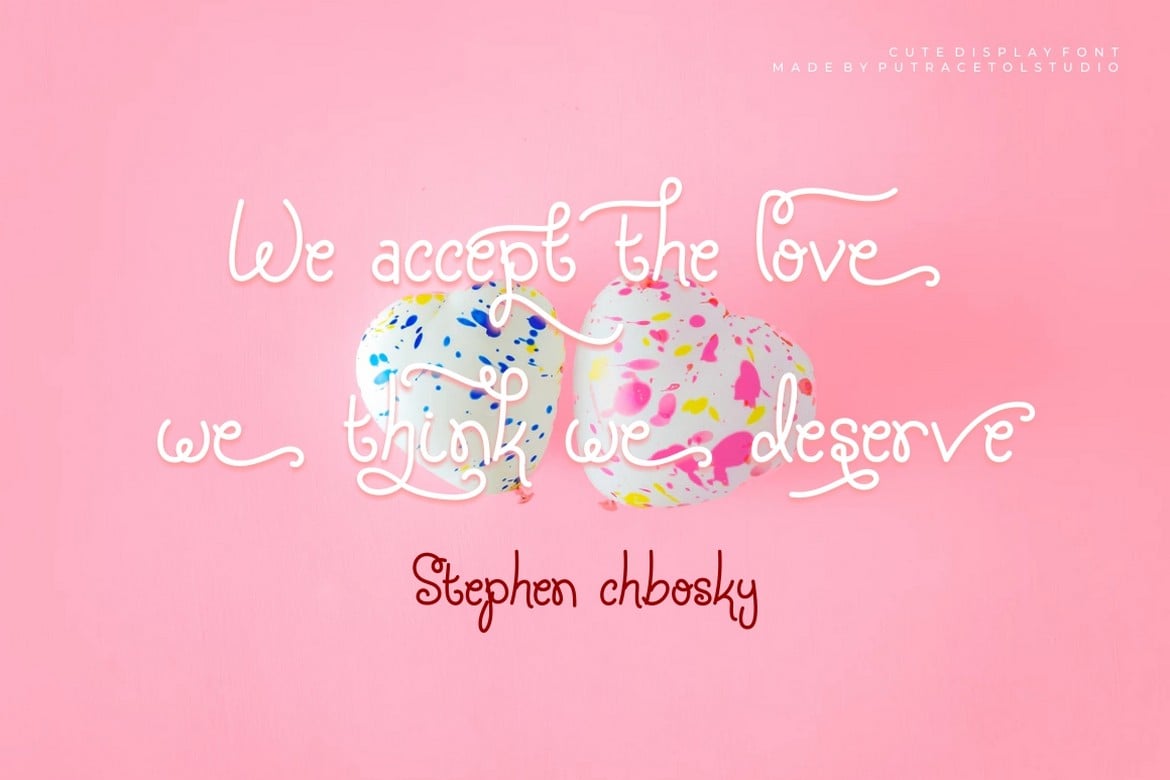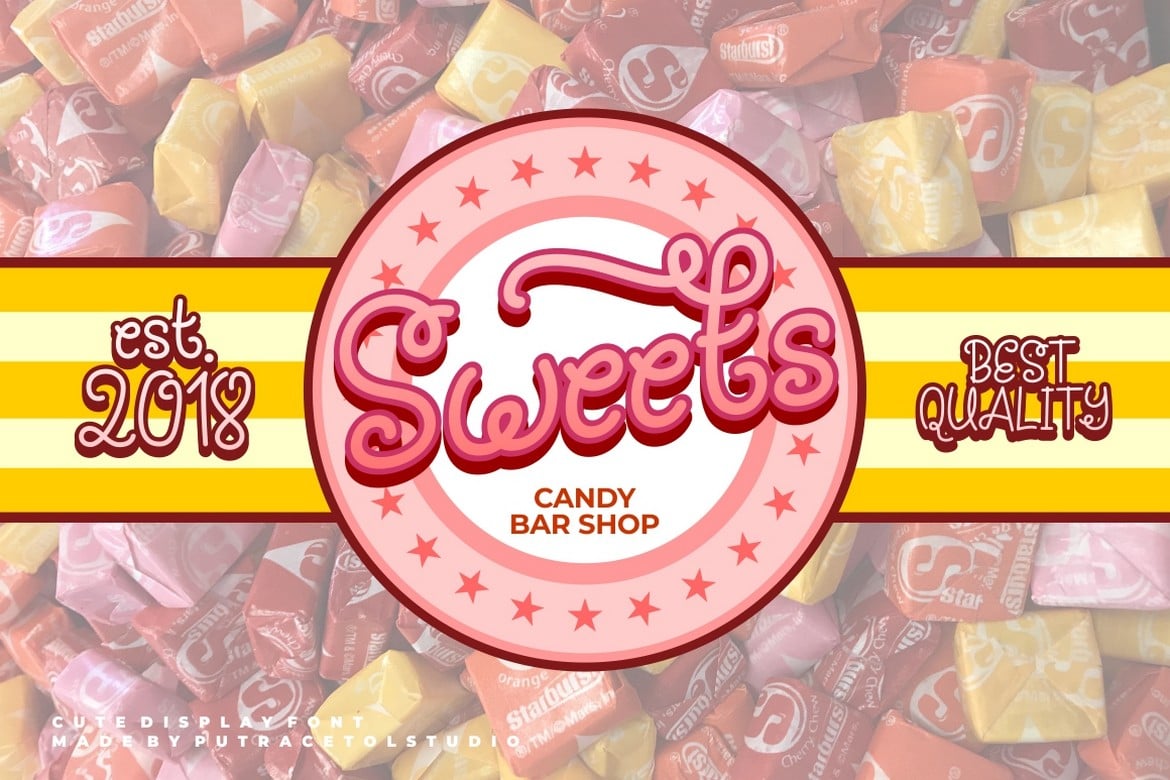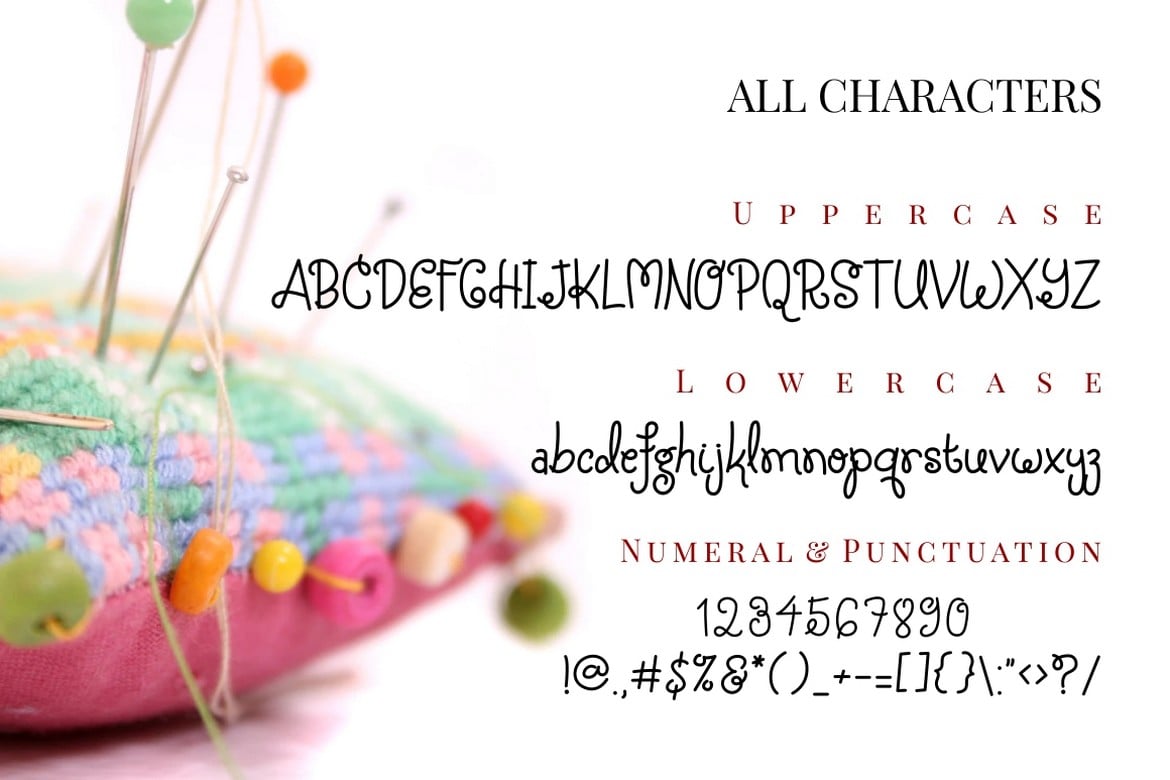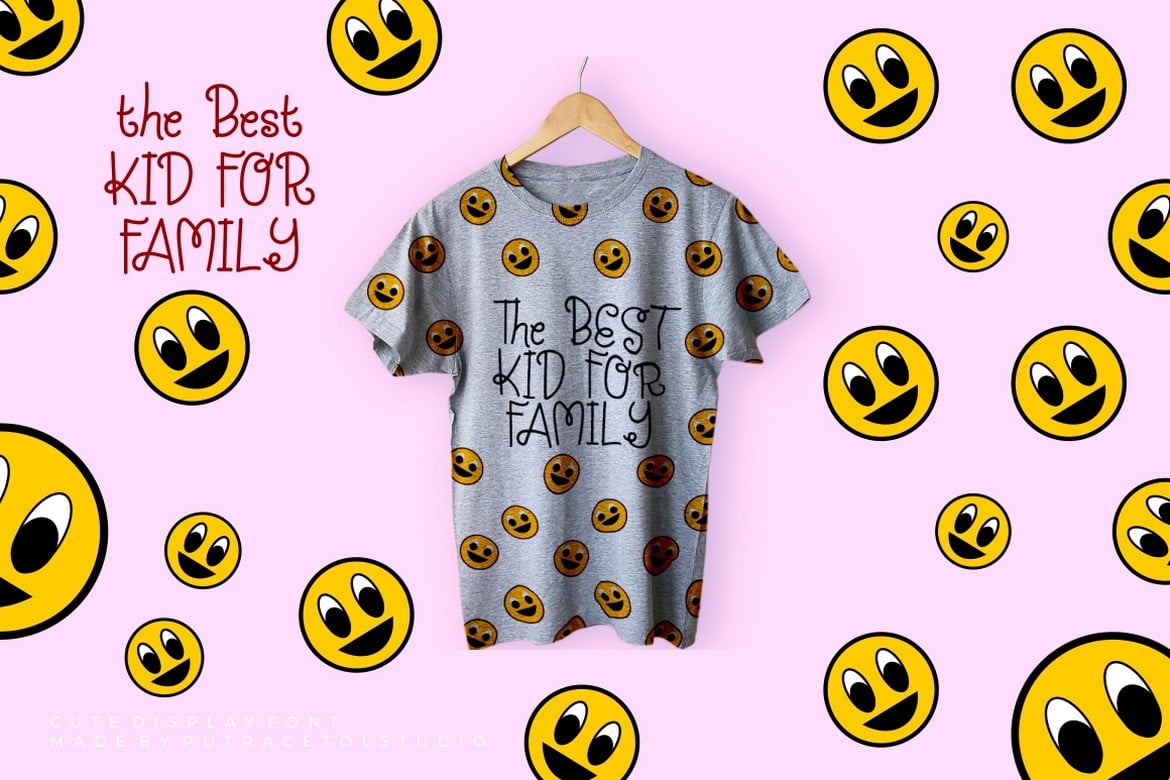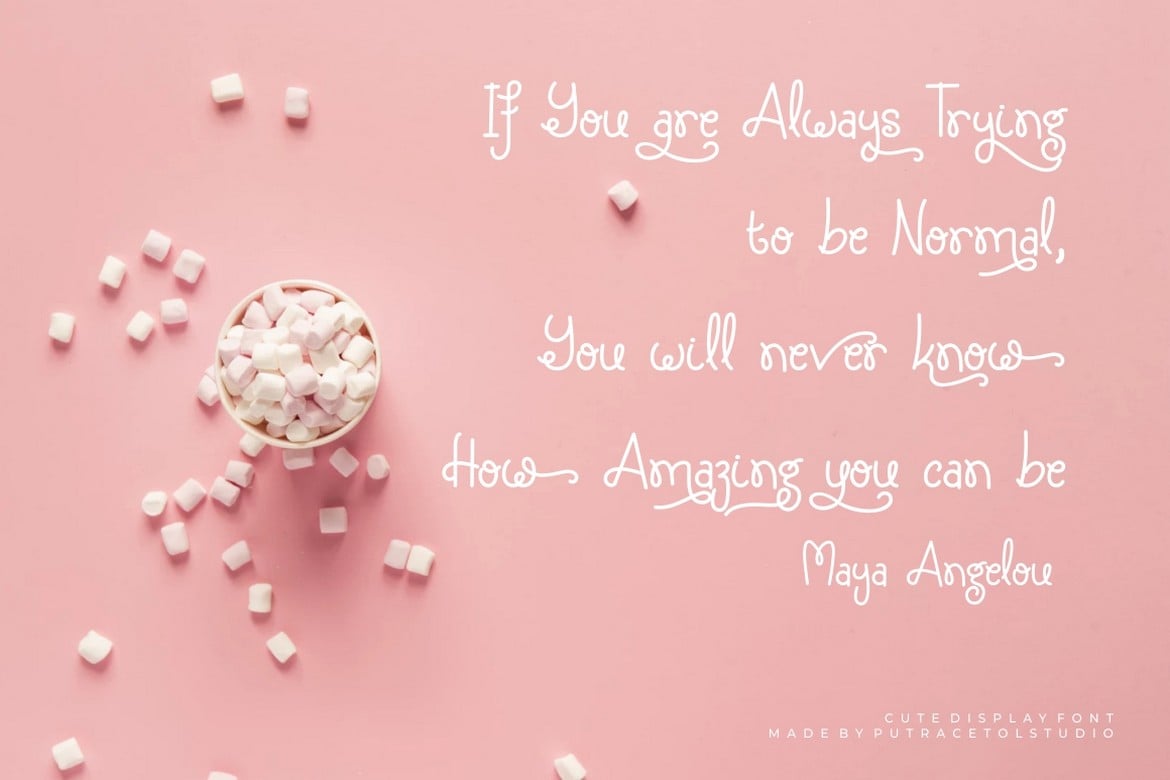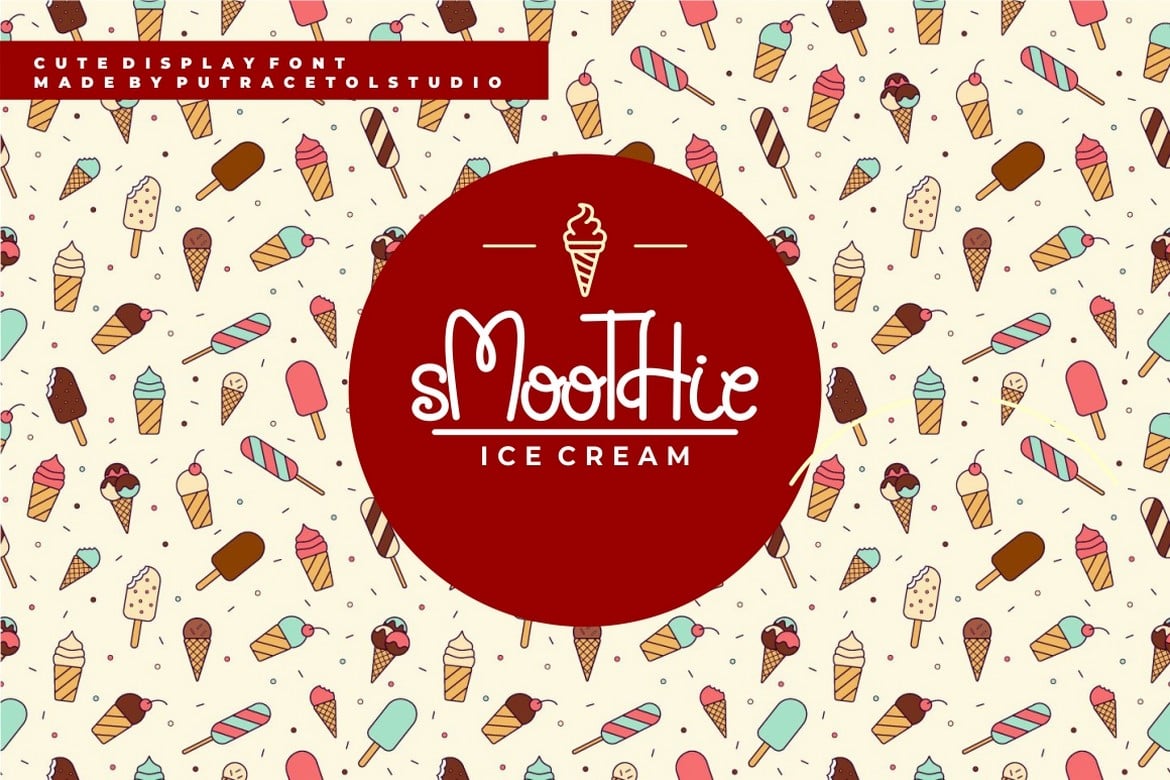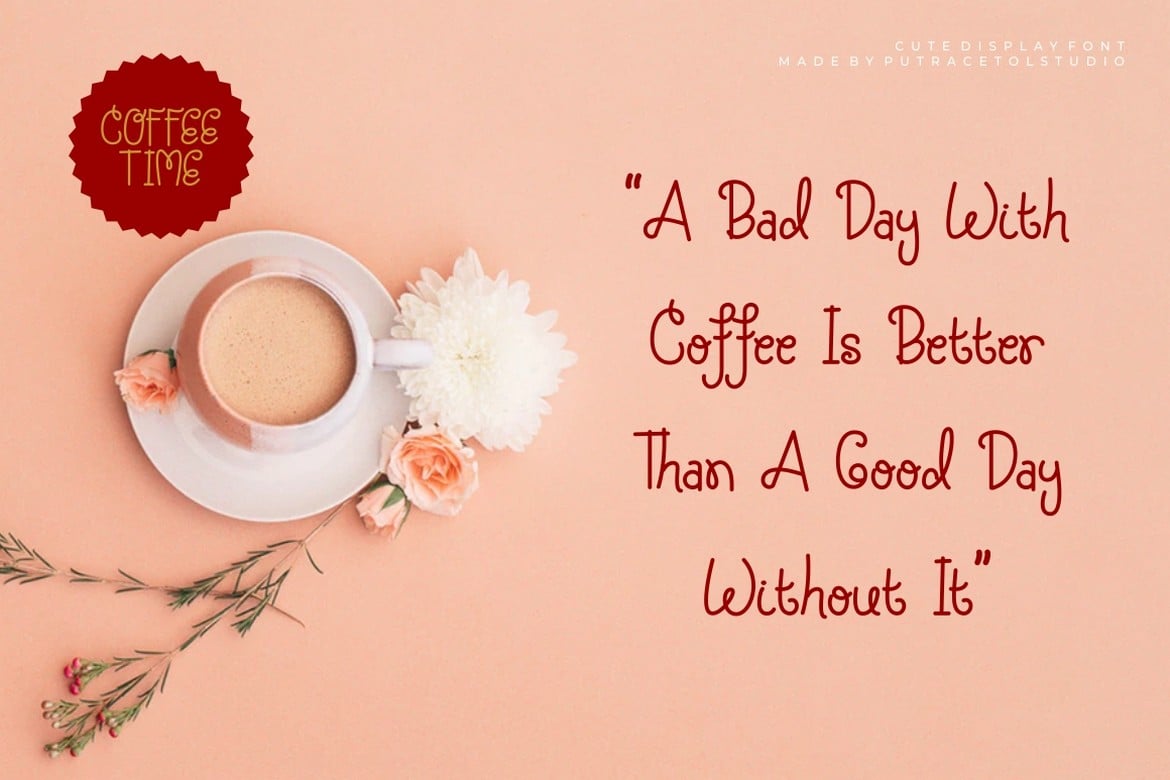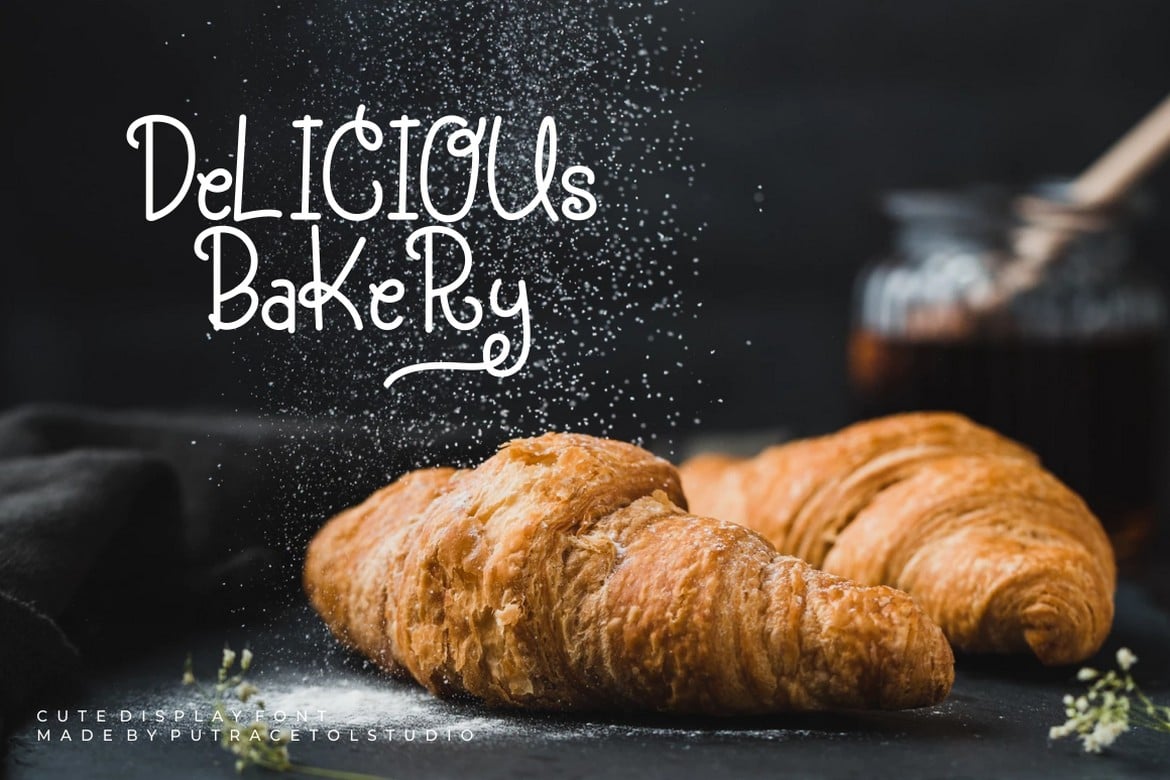
Silky Candy – Cute Sweet Font
**Introducing … Silky Candy – Sweet Cute Font **
Silky Candy is a sweet cute and fun display font.
Silky Candy would be perfect for Quotes, doodle, comic, books, greeting cards, toys, posters, baby clothing, picture books or anything that requires a fun and happiness look!